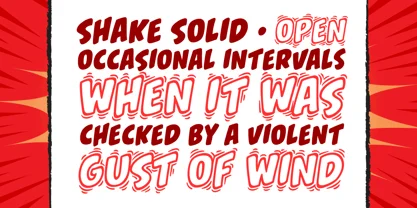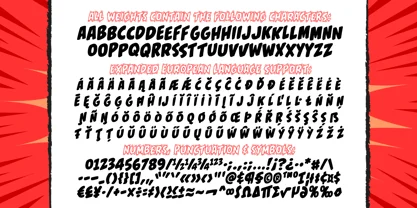
Shake Font
There is a particular satisfaction in finding a typeface that delivers refined proportions and careful stroke modulation without compromise. Shake consistently provides it. The typeface brings a versatile sensibility to a broad range of creative disciplines, with distinctive character without sacrificing readability that holds up whether the work is print-first or screen-first.
In practice, Shake proves particularly effective for packaging design, logo design, product labels, environmental graphics, advertising campaigns. Designers reaching for it find that the type decisions feel resolved rather than laboured — a useful quality when client timelines are tight.
The range of applications extends to web design, brand identity systems, annual reports, social media graphics. That breadth is deliberate: the proportions and spacing were stress-tested across a wide range of mock briefs before the typeface was finalised.
Shake sits comfortably alongside both classic and contemporary typefaces in multi-font hierarchies. It takes direction rather than competing for attention — a quality that experienced designers know is harder to find than it appears.
Independent studios handling packaging and editorial work find Shake a reliable choice for projects that demand both personality and restraint. The design avoids the self-conscious quirkiness that dates quickly, settling instead for considered distinctiveness that holds up over time.